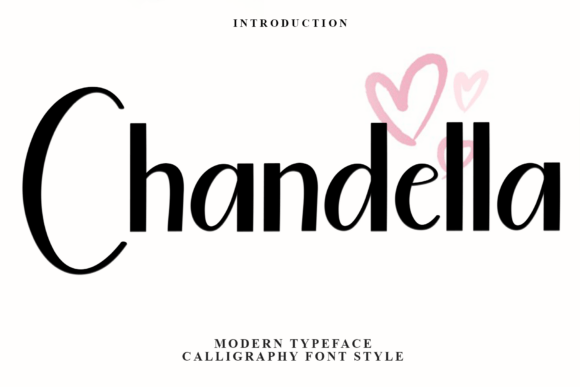
Deck the Halls with the Chandella Font
As the holiday season approaches, designers often find themselves searching for the perfect font to capture the magic of the moment. It’s that moment when you’re browsing through design inspiration boards, and suddenly, a font catches your eye, transporting you to a world of festive cheer. For many, that moment is with the Chandella Font.
This enchanting typeface is specifically designed to bring a touch of whimsy and nostalgia to your holiday-themed projects. With its decorative elements and playful flair, the Chandella Font is perfect for greeting cards, gift tags, and any other design that needs a dash of festive charm. By incorporating this font into your designs, you’ll add a layer of warmth and personality that’s sure to delight your audience.
As a PUA-encoded font, the Chandella Font offers unparalleled flexibility, allowing you to access its full range of glyphs and ligatures with ease. Whether you’re a seasoned designer or just starting out, this font is a valuable addition to your toolkit, guaranteed to elevate your holiday designs to new heights.
- Unique Characteristics: Chandella features a unique blend of traditional and modern design elements, with intricate details and ornate flourishes
Chandella Font Review
Overall, I found Chandella to be a beautiful and elegant font. ✨ Its unique blend of script and modern elements makes it perfect for creative projects, like invitations or magazine headings. The font has a soft, flowing feel that adds a touch of sophistication to any design.
Here are some of the things that work well with Chandella:
- ✨ Elegant script elements that add a touch of whimsy to designs
- ✨ High-quality rendering, even at larger font sizes
- ✨ Suitable for a wide range of design projects, from invitations to magazines
However, I did encounter some limitations with Chandella:
- ⚠️ Limited character set, which may cause issues for non-English languages
- ⚠️ Some letters may be difficult to read at very small font sizes
- ⚠️ May not be suitable for body text, as it can be difficult to read in large quantities
Overall, I would recommend Chandella for designers who need a high-quality, elegant font for creative projects. Just be sure to use it sparingly and in the right context to avoid readability issues.
Tips for Getting the Most Out of Chandella Font
Chandella Font is a beautiful, elegant script font that works well for:
- Formal event announcements
- High-end product packaging
Remember to pair Chandella Font with a clean, simple design to let the font be the focal point.